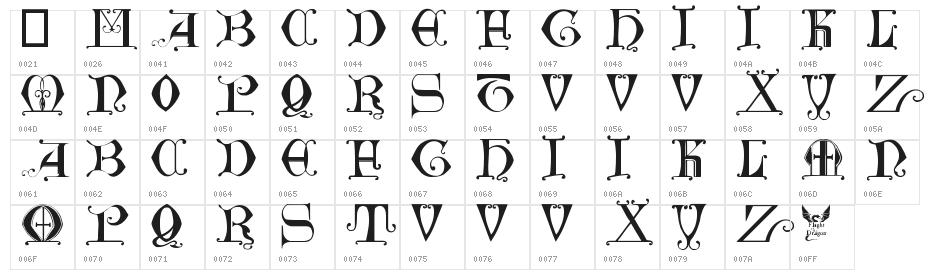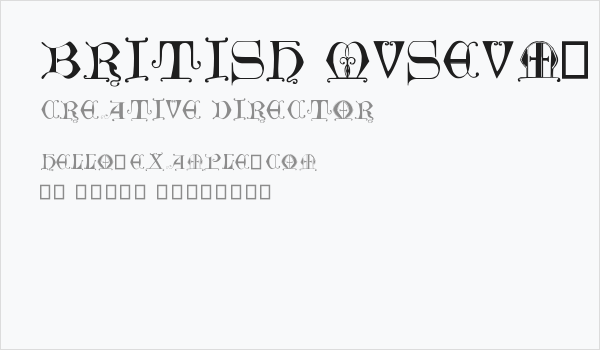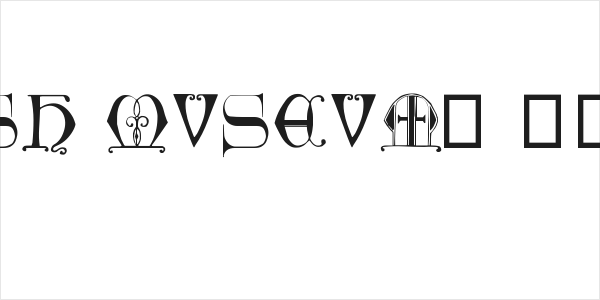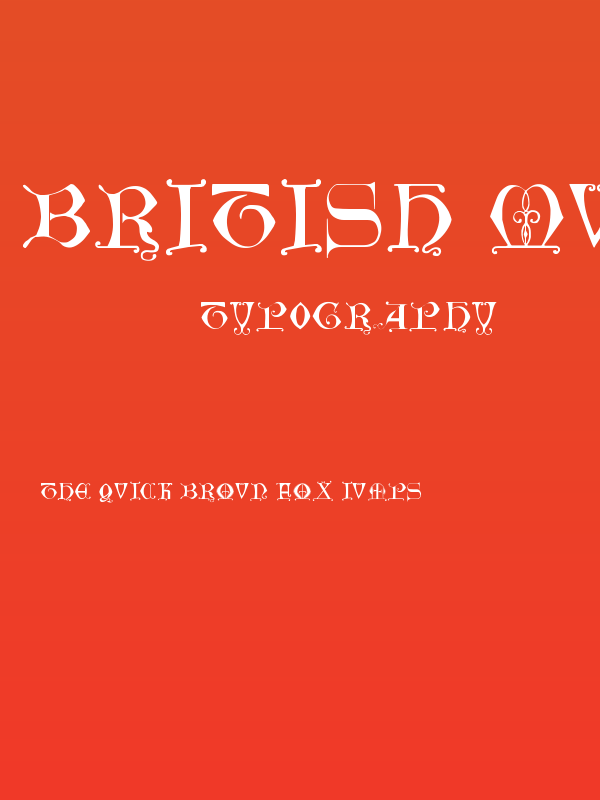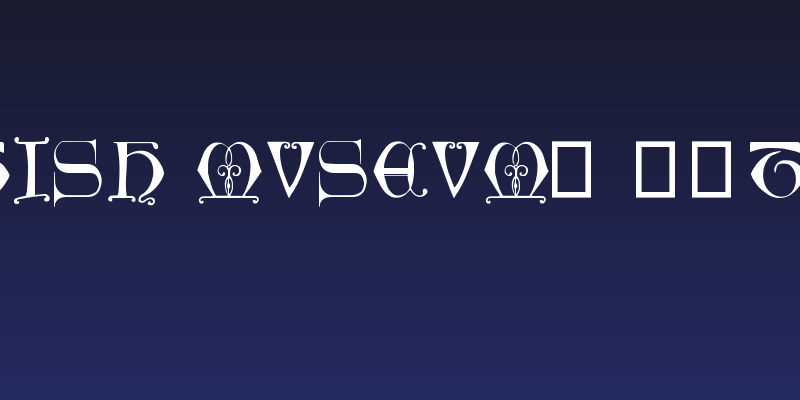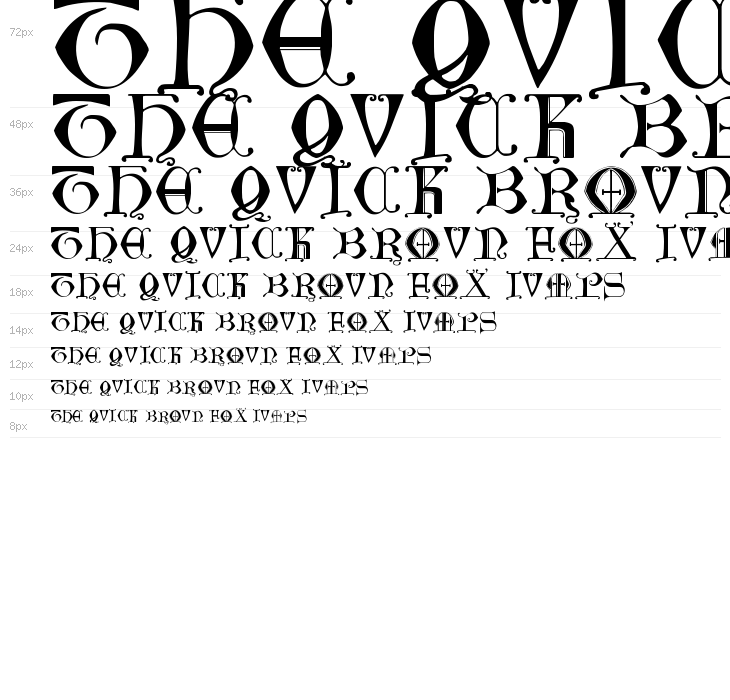
British Museum, 14th c. Font
British Museum, 14th c. Description
This font exhibits a highly decorative and ornate style, reminiscent of medieval script with intricate embellishments. Each character is adorned with flourishes and unique design elements, creating a sense of historical elegance. The uppercase letters feature elaborate serifs and swashes, while the lowercase letters maintain a consistent decorative theme. The numbers and special characters are similarly styled, ensuring a cohesive look throughout. This font's intricate details and historical inspiration make it ideal for projects that require a touch of antiquity and sophistication.
| Use Case | Headlines, Logos, Decorative text |
| Proposed Projects | Ideal for historical-themed designs, invitations, certificates, and branding that requires a touch of elegance and antiquity. |